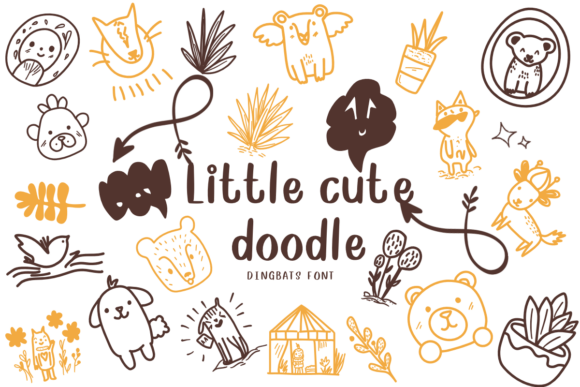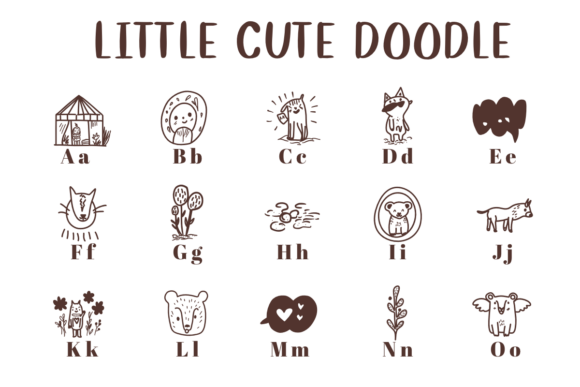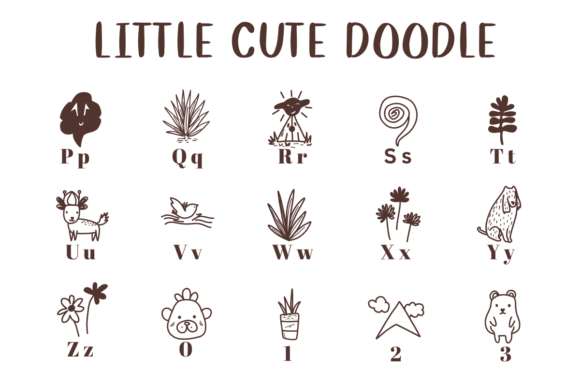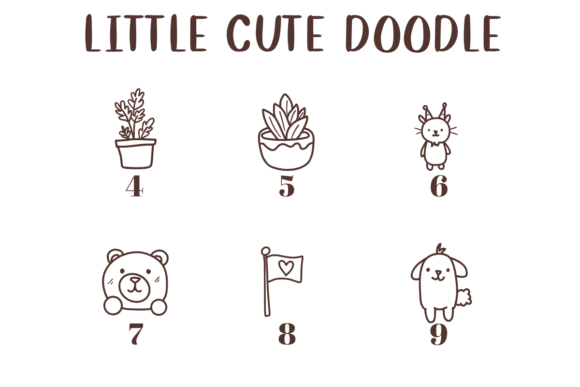
Little Cute Doodle Font
About the Little Cute Doodle Font
Add a touch of class to your work with the Little Cute Doodle Font, a truly exceptional typeface. Little Cute Doodle is a dingbats font with an abstract theme. This font can enhance your creative projects such as wedding invitations, DIY, crafts, decorations, logos, and many other creative ideas.
Its playful, hand-drawn aesthetic makes it ideal for projects requiring a whimsical touch, such as children’s books, branding for craft businesses, or playful social media graphics. It excels in headlines, short phrases, and logos where its unique character shines. However, its low readability makes it unsuitable for body text or UI elements requiring extended reading.
Little Cute Doodle pairs well with clean sans-serif fonts like Open Sans for a balanced contrast, or a more geometric sans-serif such as Montserrat for a modern feel. A script font with a similarly informal tone could also complement it effectively, adding a touch of elegance without overpowering the doodle’s charm.
The font’s core personality is undeniably friendly and approachable, conveying a sense of lighthearted fun. Avoid using it for projects requiring sophistication or seriousness; its charm lies in its informal, almost childlike energy.
Little Cute Doodle Font Example